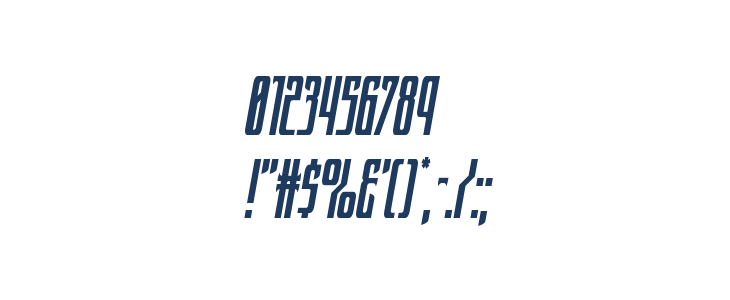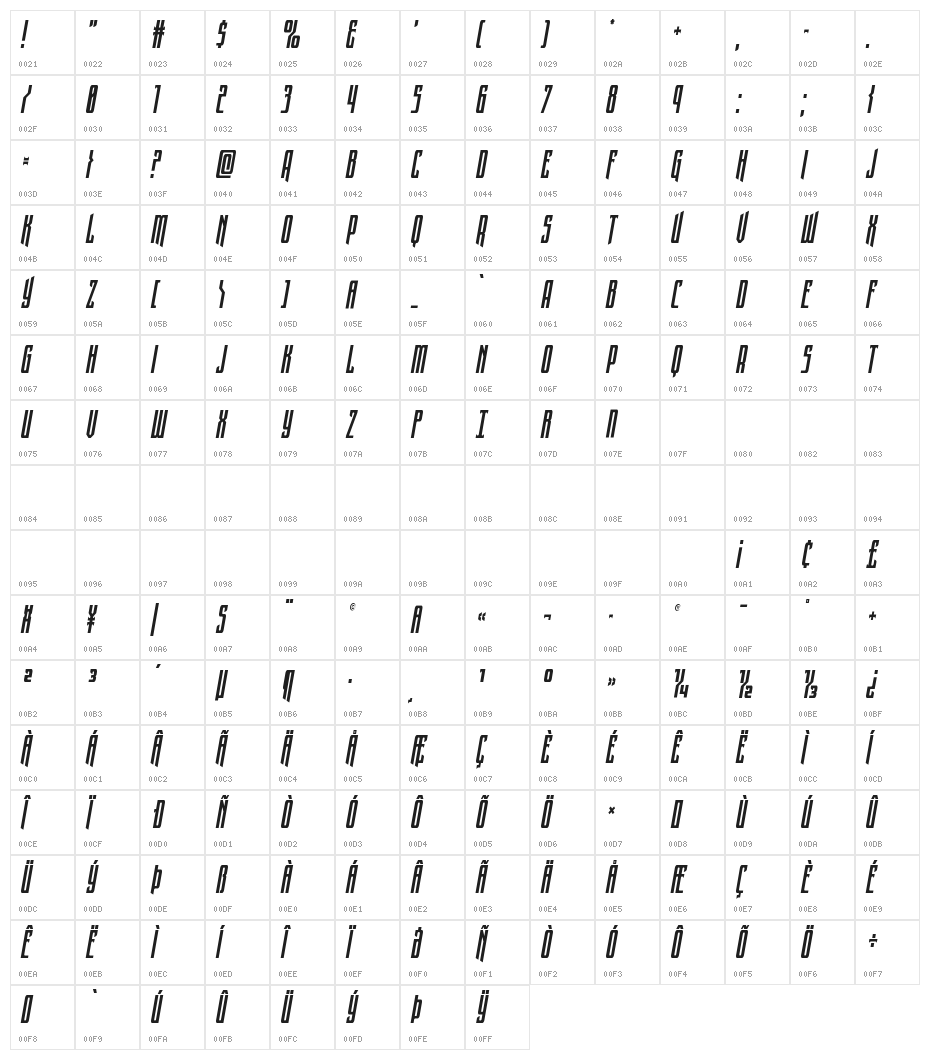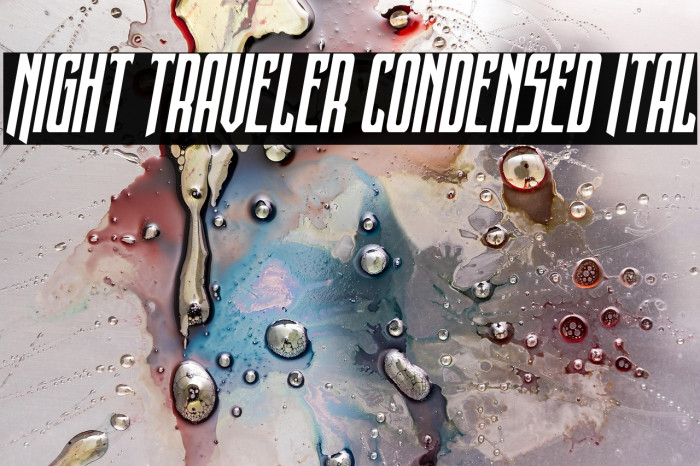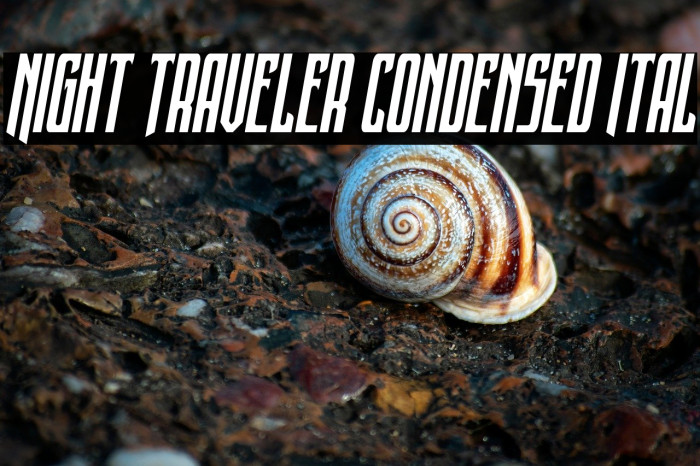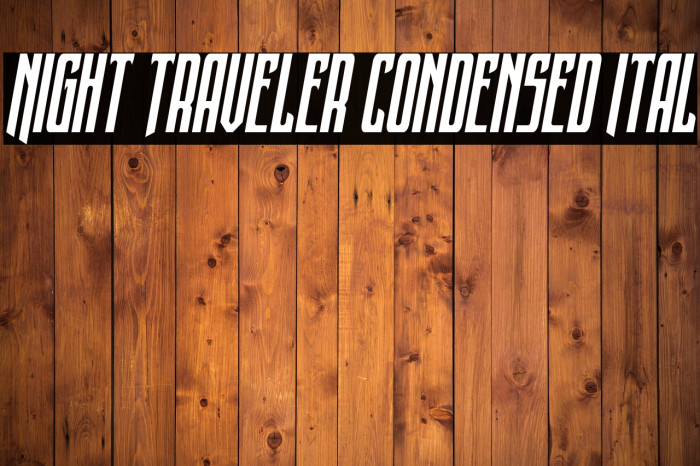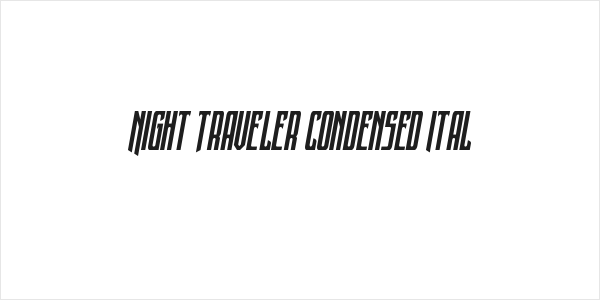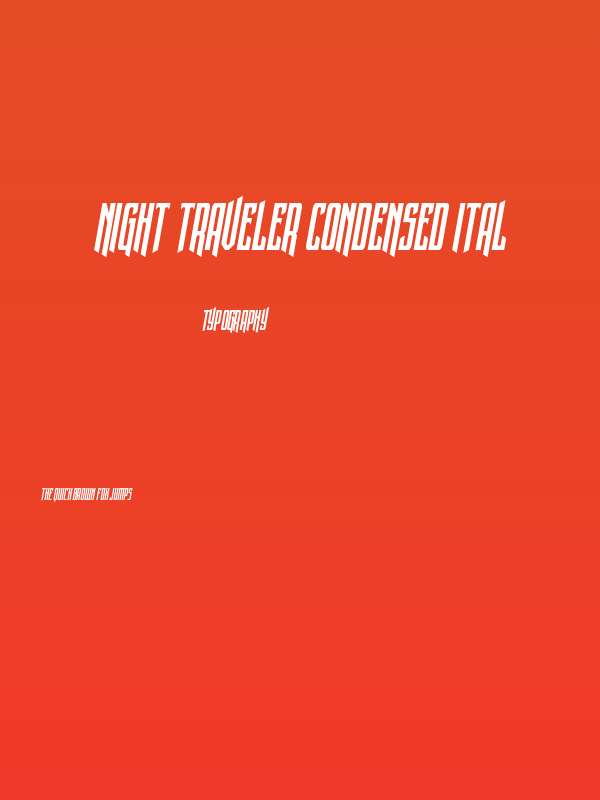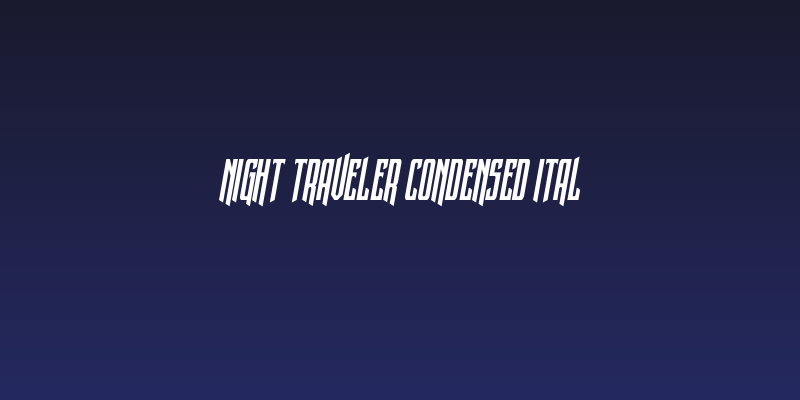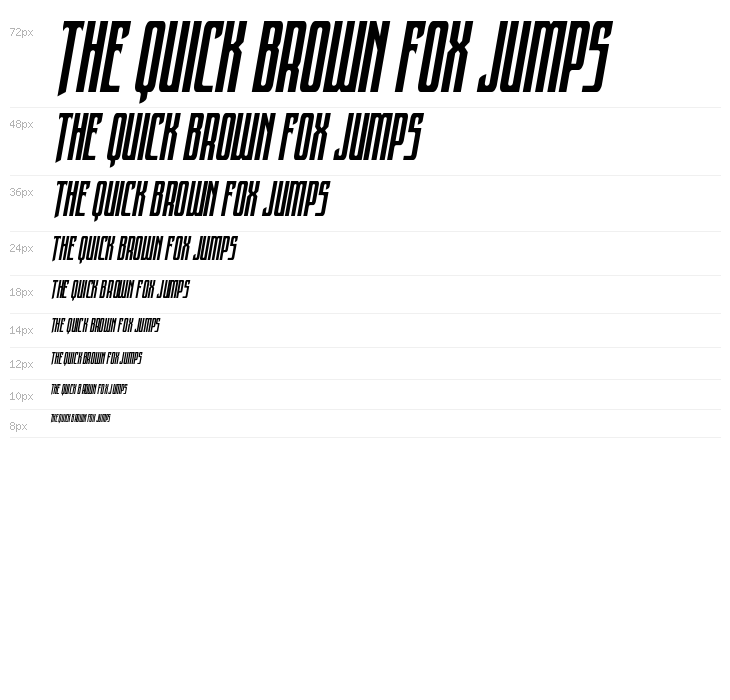
Night Traveler Condensed Ital Font
Night Traveler Condensed Ital Description
This font features a bold and condensed design with a distinct italic slant, giving it a dynamic and energetic appearance. The characters are tightly spaced, enhancing its compact and streamlined look. The strokes are consistent in thickness, providing a uniform and cohesive style. This font's sharp angles and clean lines contribute to its modern and edgy aesthetic, making it suitable for impactful and attention-grabbing designs. The uppercase and lowercase letters maintain a consistent style, ensuring readability while maintaining a unique flair. The numerals and special characters are designed to match the overall style, ensuring a cohesive look across all text elements.
| Proposed Projects | Ideal for sports branding, posters, headlines, and any project requiring a bold and energetic typeface. |